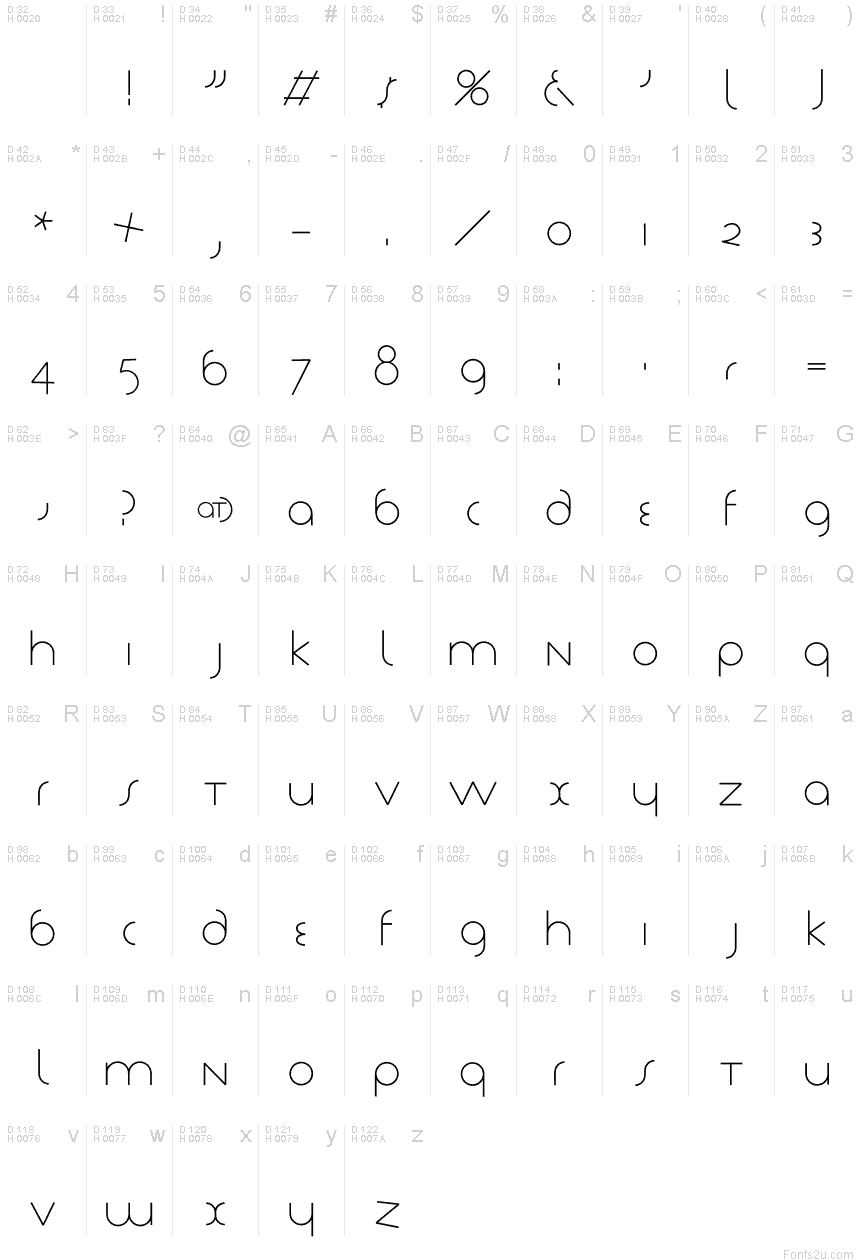
TschichLight Light by M. Klein is a free geometric sans serif built from exceptionally fine, nearly monoline strokes. Tall verticals and broad circular curves give the letters an airy, architectural silhouette, with restrained joins and clean horizontal bars.
Technology and architecture themes suit its machine-age geometry in editorial design or digital graphics. The spare construction also fits fashion branding and contemporary event posters, where the lettering can function like precise linework.